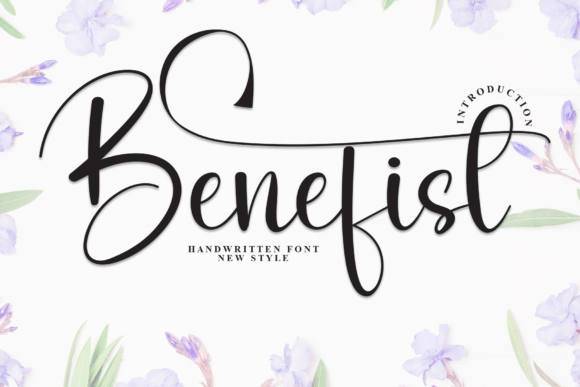
Where Creativity Meets Joy
You know that moment when you’re brainstorming ideas for a special project and the perfect font suddenly pops into your mind? That’s exactly what happens when you discover the delightful Benefist Font. Its playful and lighthearted design is the perfect match for any creative endeavor that requires a dash of whimsy and charm.
The Benefist Font is a beautifully crafted handwritten display font, designed to add a touch of warmth and personality to your designs. Whether you’re creating wedding invitations, heartfelt cards, or any other project that needs a sprinkle of joy, this font is sure to bring a smile to your face and your clients’. As a designer, you’ll appreciate the versatility and expressiveness of the Benefist Font, making it an invaluable addition to your toolkit.
Benevolent Font Features
- Size and Resolution: The font is designed to be highly legible at various sizes and resolutions, from 72 dpi to 300 dpi, making it suitable for both digital and print applications.
- Unique Character Set: Benevolent Font features a comprehensive character set, including Latin, Cyrillic, and Greek alphabets, as well as a range of symbols and punctuation marks.
- Customizable: The font includes a range of OpenType features, such as ligatures, swashes, and alternates, allowing designers to add a personal touch to their work.
Benefist Font Review
Overall, I’d say Benefist Font has some great qualities that make it a solid choice for designers, but it’s not without its limitations.
- Unique and elegant design: Benefist Font has a distinct, flowing style that’s perfect for creative projects.
- High-quality glyphs: The font includes a wide range of characters, including Latin, Cyrillic, and Greek scripts.
- Flexibility: Benefist Font is available in various weights, from light to bold, making it easy to use in different contexts.
- Less suitable for body text: While Benefist Font is great for headlines and titles, it may not be the best choice for large blocks of text due to its complexity.
- Limited language support: While the font includes multiple scripts, it may not cover all the languages you need to support.
- Requires careful kerning: Benefist Font’s unique design can make it challenging to achieve optimal kerning, so be prepared to spend some time tweaking it.
Benefist Font is a beautiful and versatile font that’s perfect for designers looking to add some flair to their projects. While it may not be the best choice for every situation, it’s a great addition to any designer’s toolkit.
The BeneFit Font is ideal for:
- Creating eye-catching headings and titles.
- Adding a touch of elegance to business presentations and reports.
- Designing modern and trendy brochures and flyers.
To get the most out of the BeneFit Font, try the following:
- Combine it with bold and italic styles for added emphasis.
- Use it in conjunction with other modern fonts for a cohesive look.
Alternative Fonts to Benefist Font
Open Sans is a clean, modern sans-serif font that is highly legible and versatile. It is ideal for body text, headings, and titles. Open Sans is a great alternative to Benefist Font for digital products, websites, and mobile apps.
Comparison: Open Sans is more modern and has a more neutral tone compared to Benefist Font, which has a more playful and vintage feel. Open Sans is also more versatile and can be used in a wider range of contexts.
Lato is a sans-serif font that is highly legible and elegant. It is ideal for body text, headings, and titles. Lato is a great alternative to Benefist Font for branding, packaging, and print materials.
Comparison: Lato is more elegant and sophisticated compared to Benefist Font, which has a more playful and casual feel. Lato is also more versatile and can be used in a wider range of contexts.
Does Benefist Font support multilingual typography?
Yes, Benefist Font supports a wide range of languages, including Latin, Cyrillic, and Greek scripts. It also includes a comprehensive set of ligatures and diacritical marks, making it a great choice for designers who need to create multilingual content.